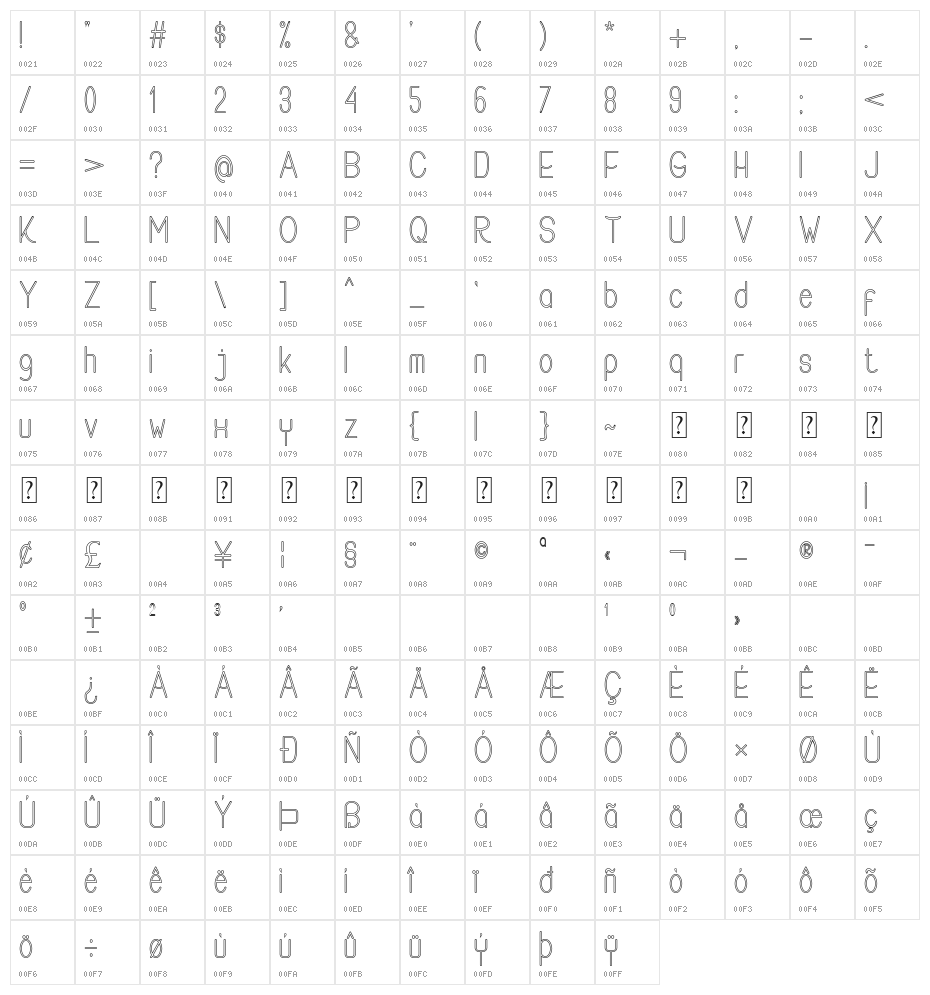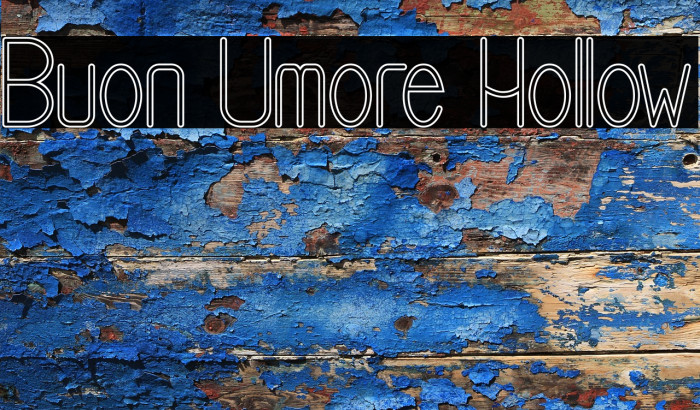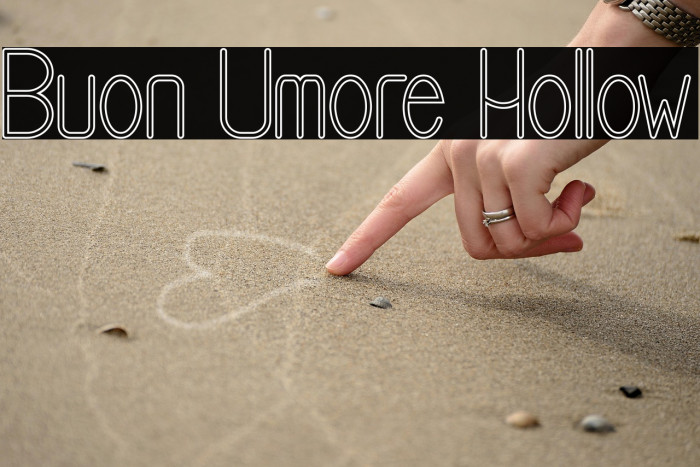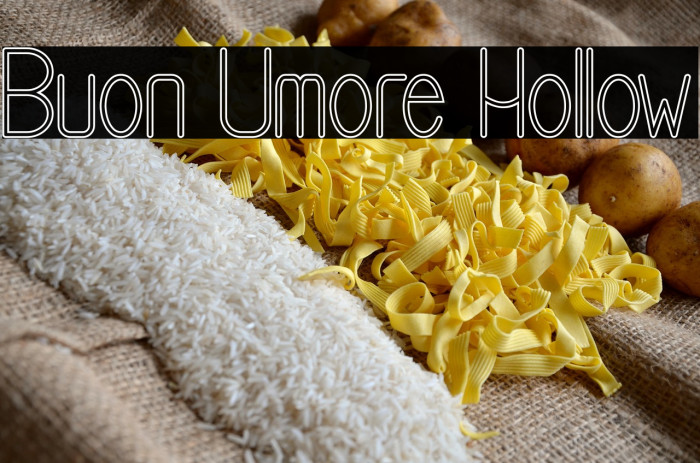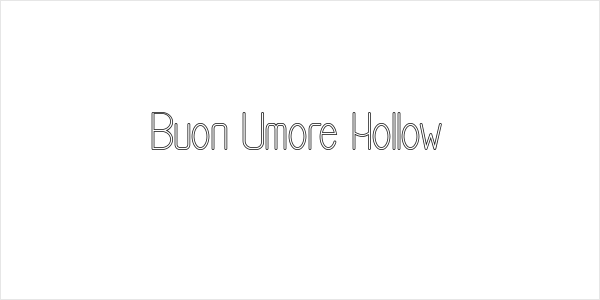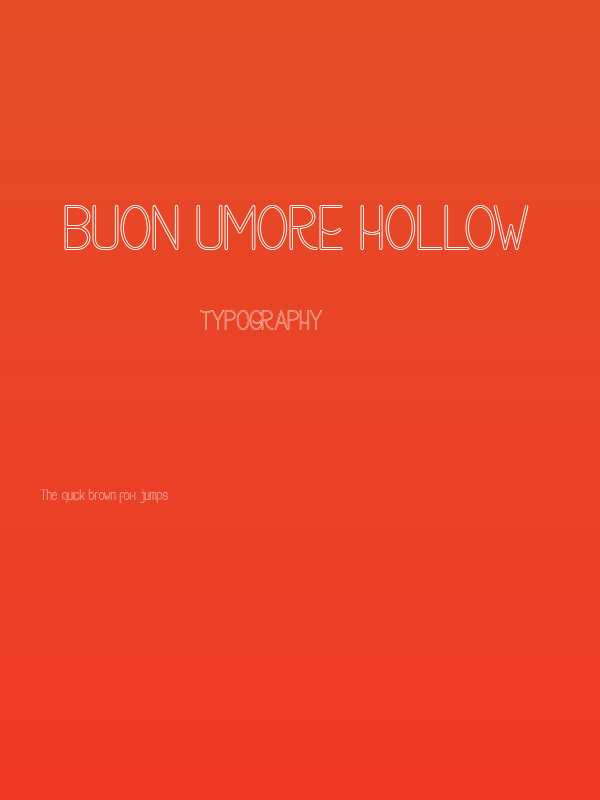
Buon Umore Hollow Font
Buon Umore Hollow Description
This font features a hollow, outline style that gives it a unique and airy appearance. The characters are evenly spaced with a consistent line thickness throughout, creating a clean and modern look. The uppercase and lowercase letters maintain a uniform height, contributing to its balanced design. The numerals and special characters are crafted with the same attention to detail, ensuring a cohesive visual experience. This font's open structure makes it ideal for projects that require a light and playful touch, while still maintaining readability.
| Proposed Projects | Ideal for posters, logos, headlines, and creative projects that require a distinctive and playful font. |